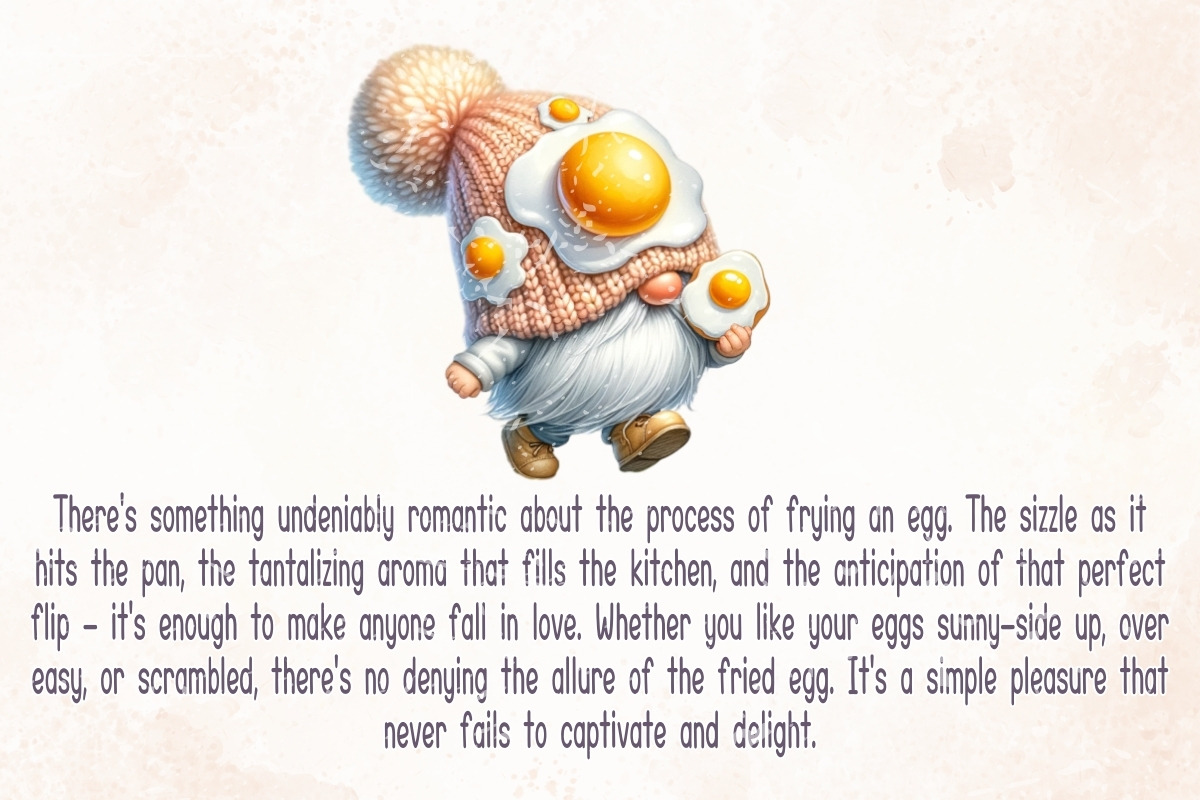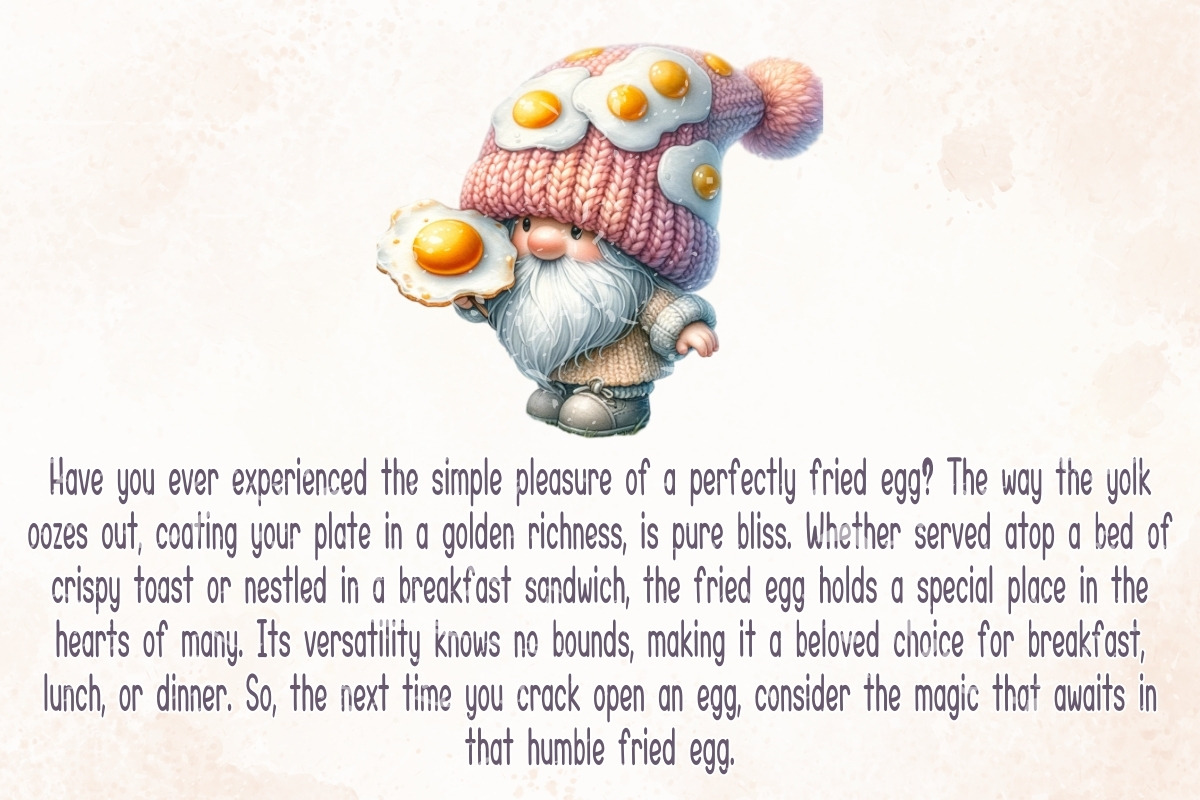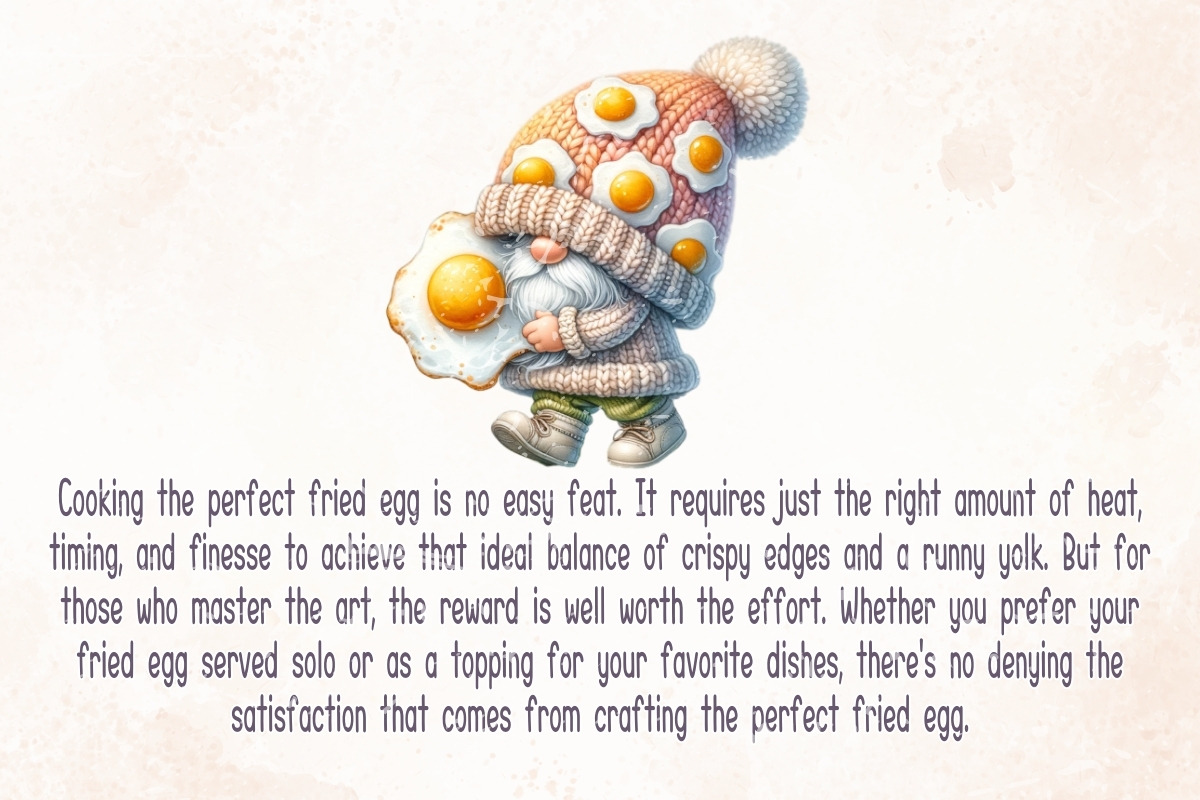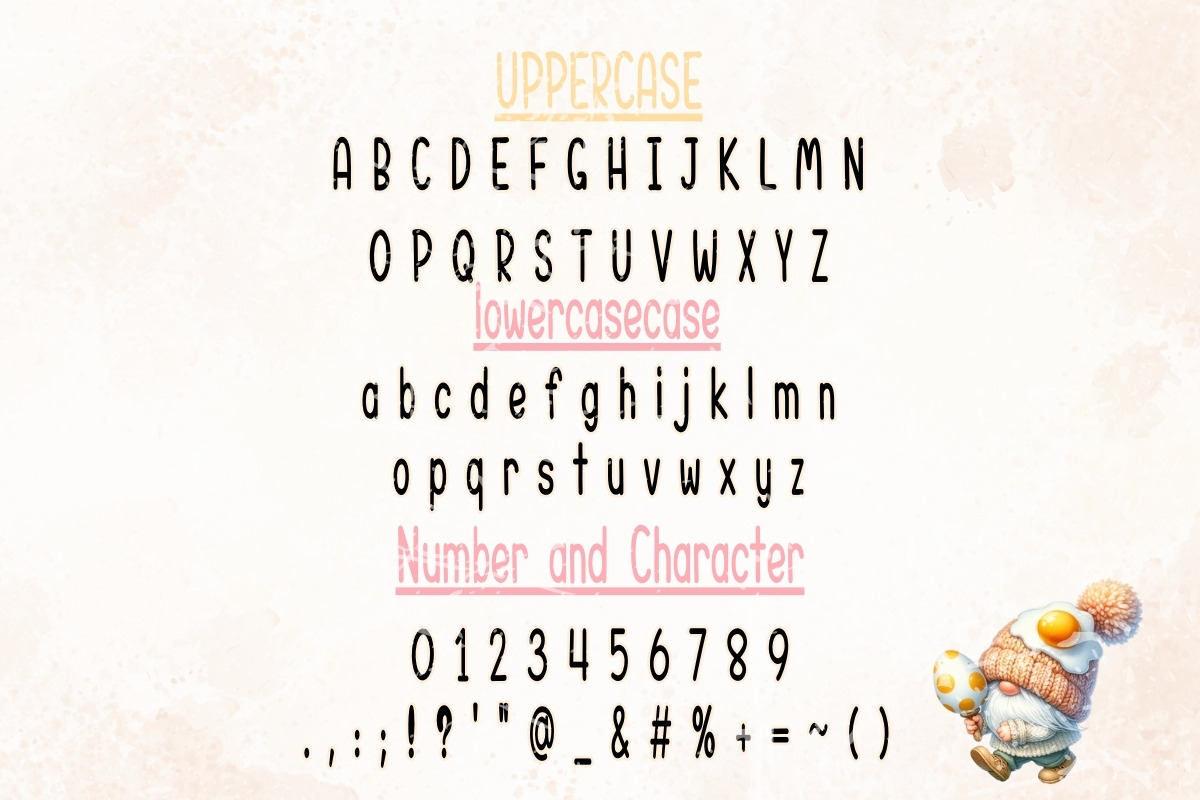
Fried Egg - Handwritten
Introducing "Fried Egg" – a delightful handwritten font that adds a touch of whimsy and charm to your designs. With its playful strokes and adorable curls, Fried Egg is perfect for projects that need a dash of sweetness. Whether you're creating invitations, greeting cards, or crafting adorable logos, this font will infuse your work with a warm, handmade feel. Let Fried Egg be the cherry on top of your creative endeavors!